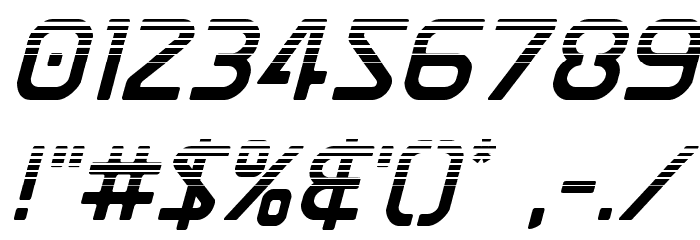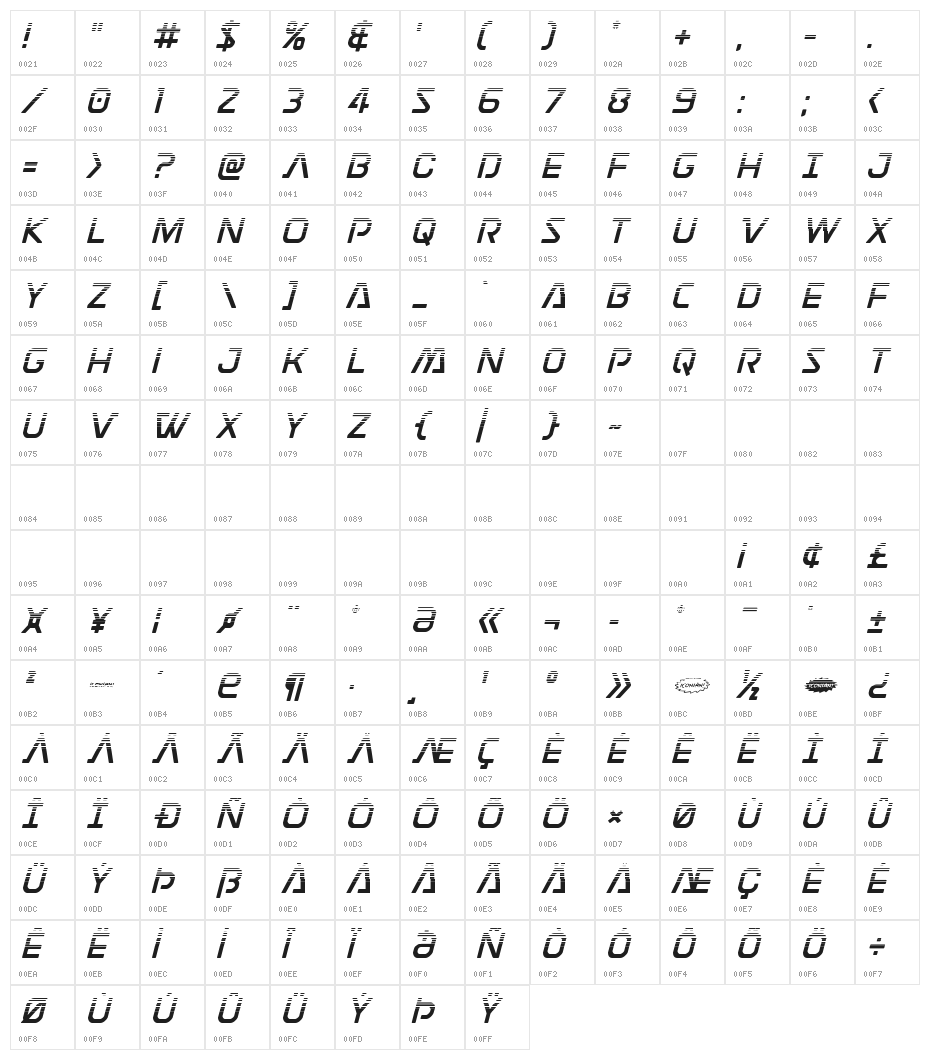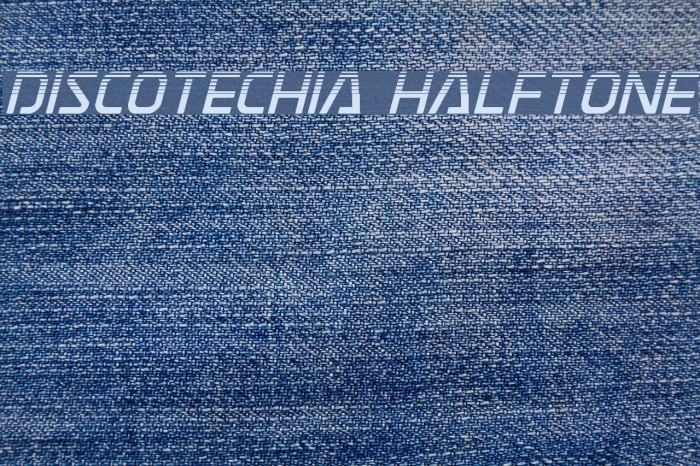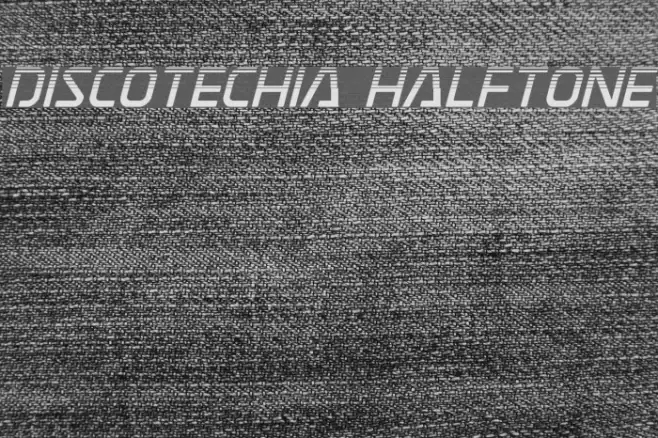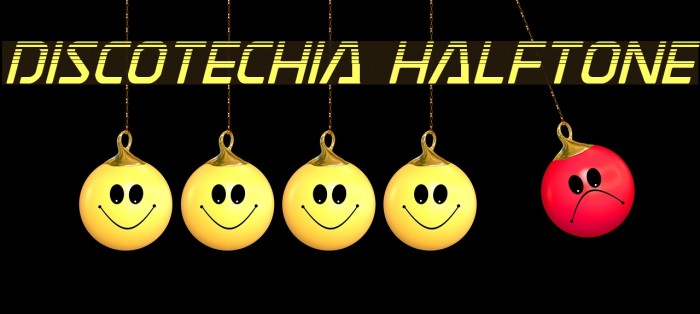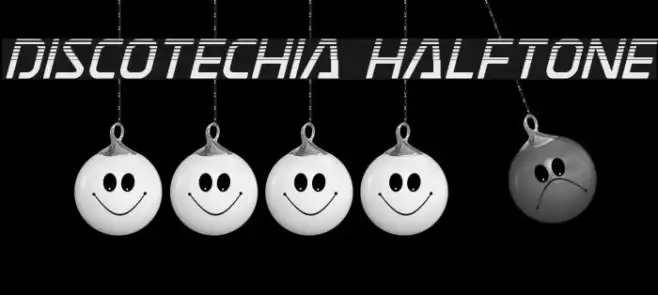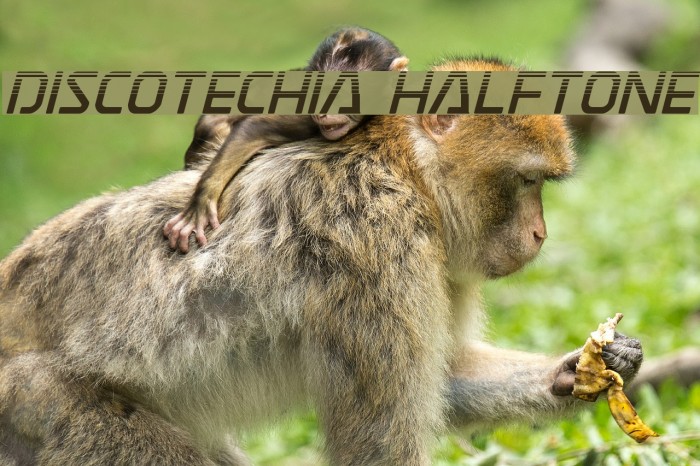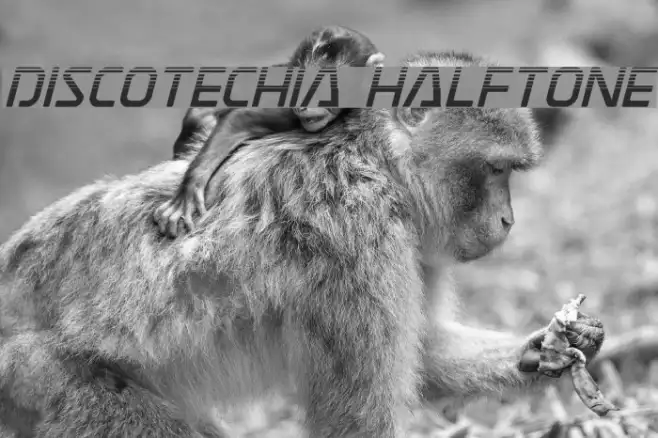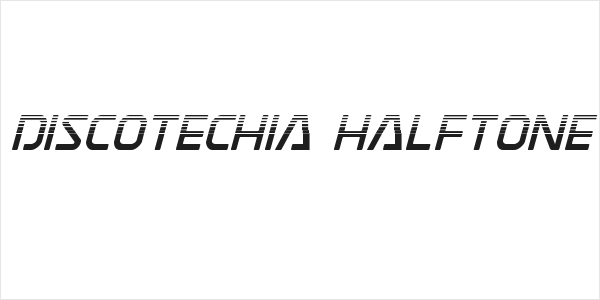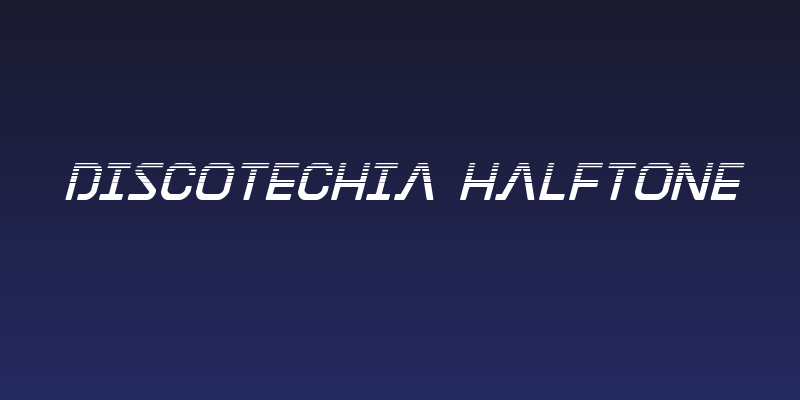
Discotechia Halftone Font
Discotechia Halftone Description
This font features a dynamic and futuristic design with a halftone effect that gives it a sense of movement and energy. The characters are bold and angular, with a distinct slant that adds to the overall impression of speed and modernity. The halftone lines create a unique texture, making it stand out in any design project. The uppercase and lowercase letters maintain a consistent style, while the numerals and special characters are crafted to match the bold and energetic aesthetic.